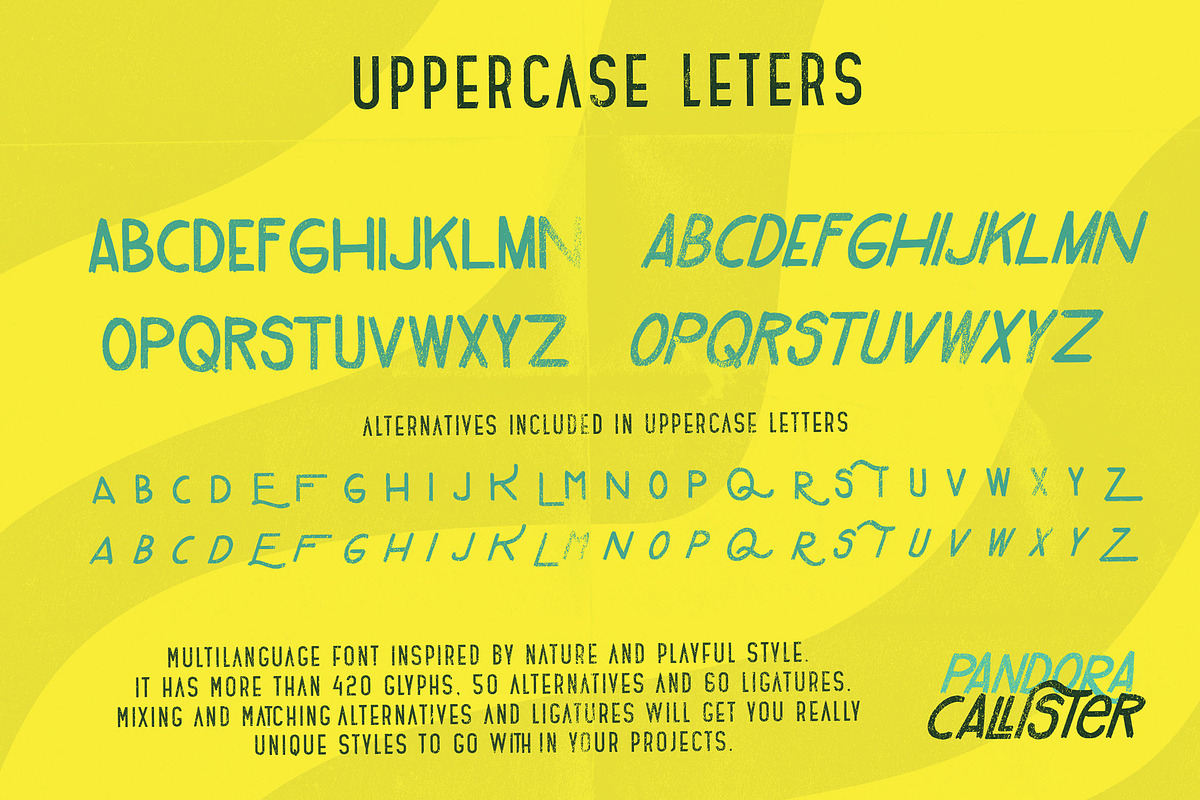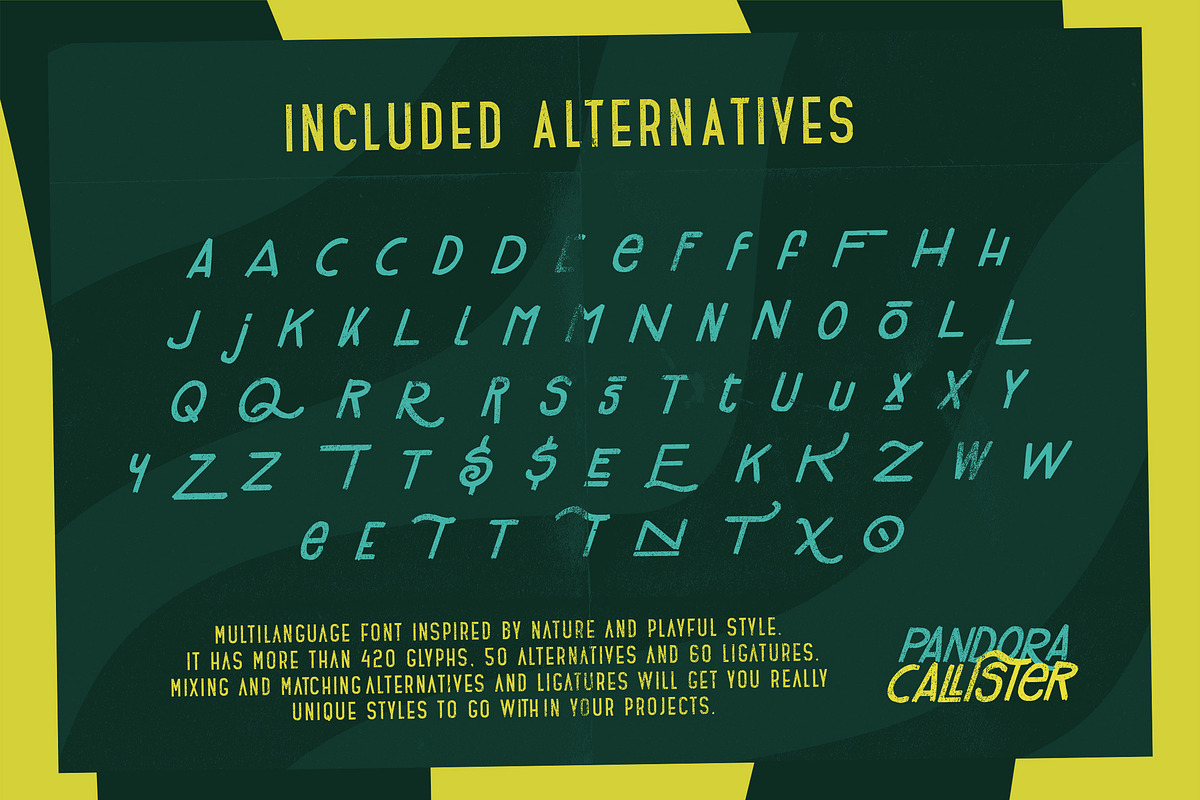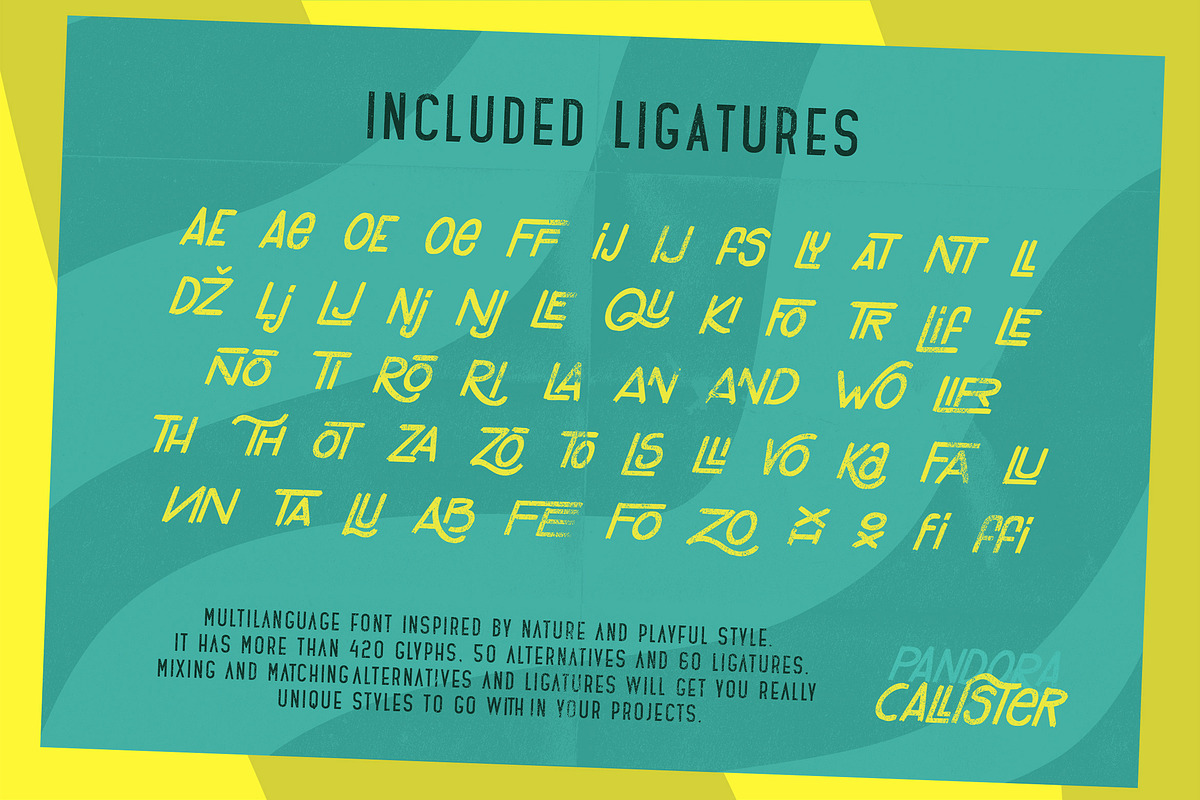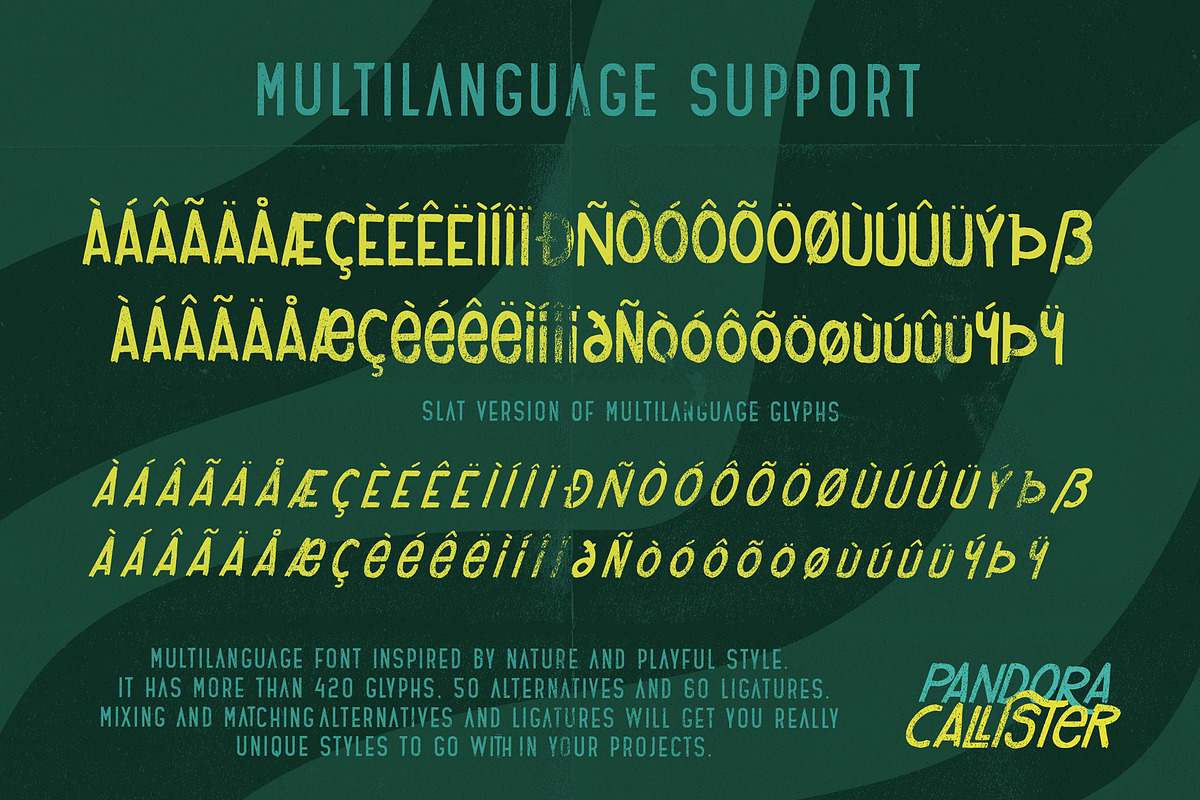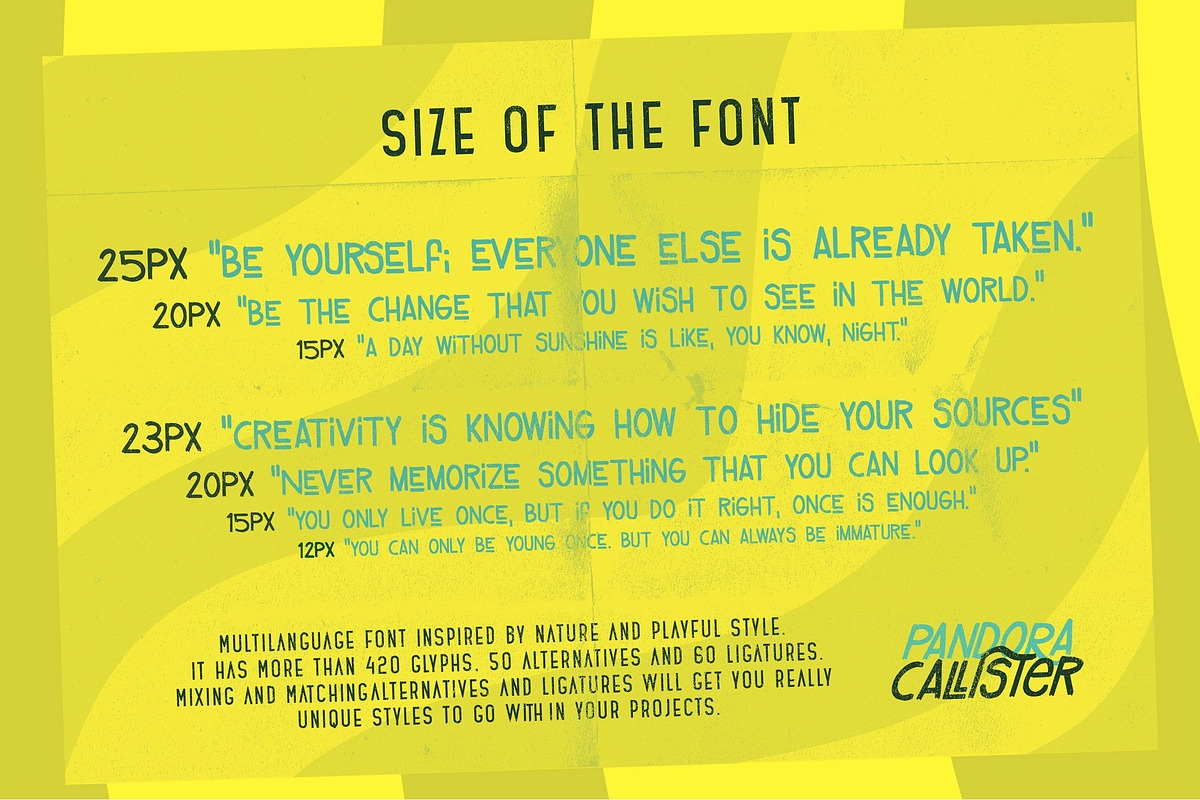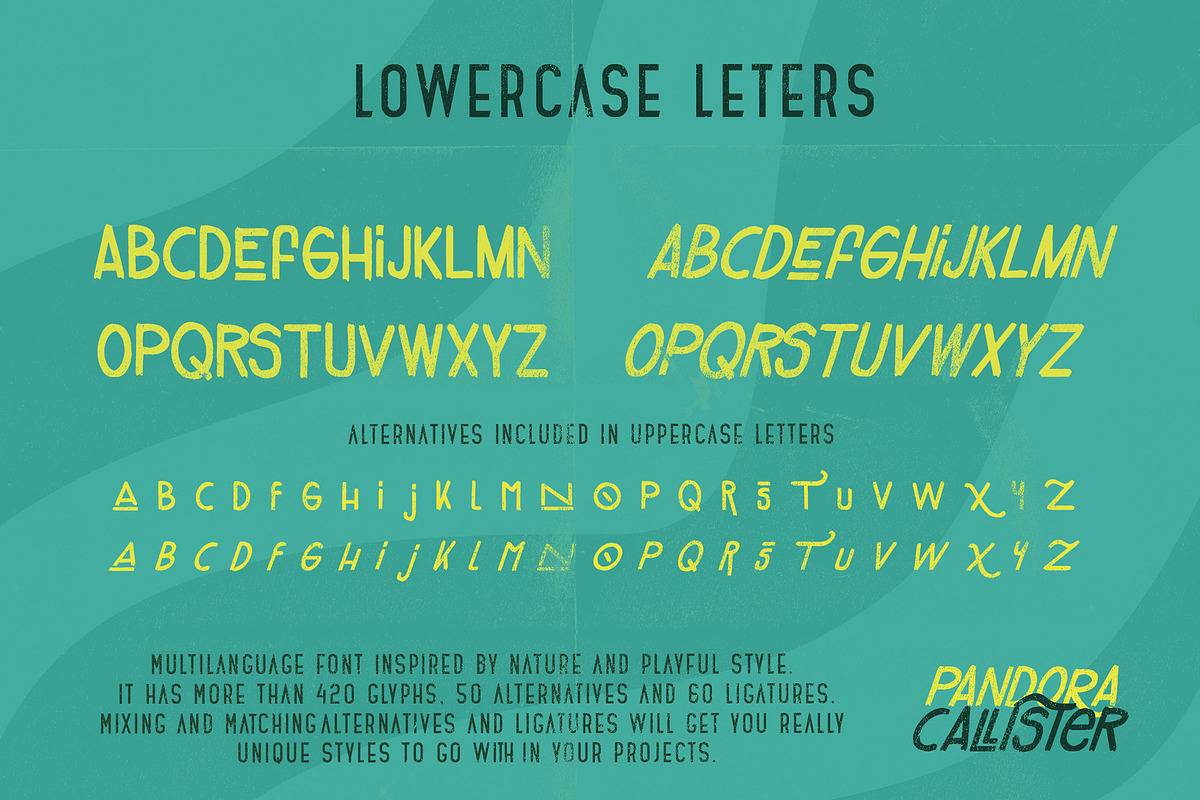
Pandora Callister Font
Pandora Callister is handmade multi language font which was inspired by nature and playful style.
Comes in Regular, Italic, Thin, Italic Slant, Dry and Dry Italic
This font includes full set of fun and unique uppercase and lowercase letters, numerals and large range of punctuation. Overall it contains more than 420 glyphs with 50 alternatives and 60 interesting ligatures. With this font you have complete freedom to use and combine various different letters, alternatives and ligatures, by that you can be sure that your design or any kind of project will be unique masterpiece.
Also, the combination and usage of different letters and ligatures gives you opportunity to have fun and at the same time create your own unique style.
• More than 420 glyphs, 50 alternatives, 60 ligatures which are unique and playful
• This font include Latin Plus diacritics
• Pandora Callister support Latin Plus languages (Latin Multilingual language support)